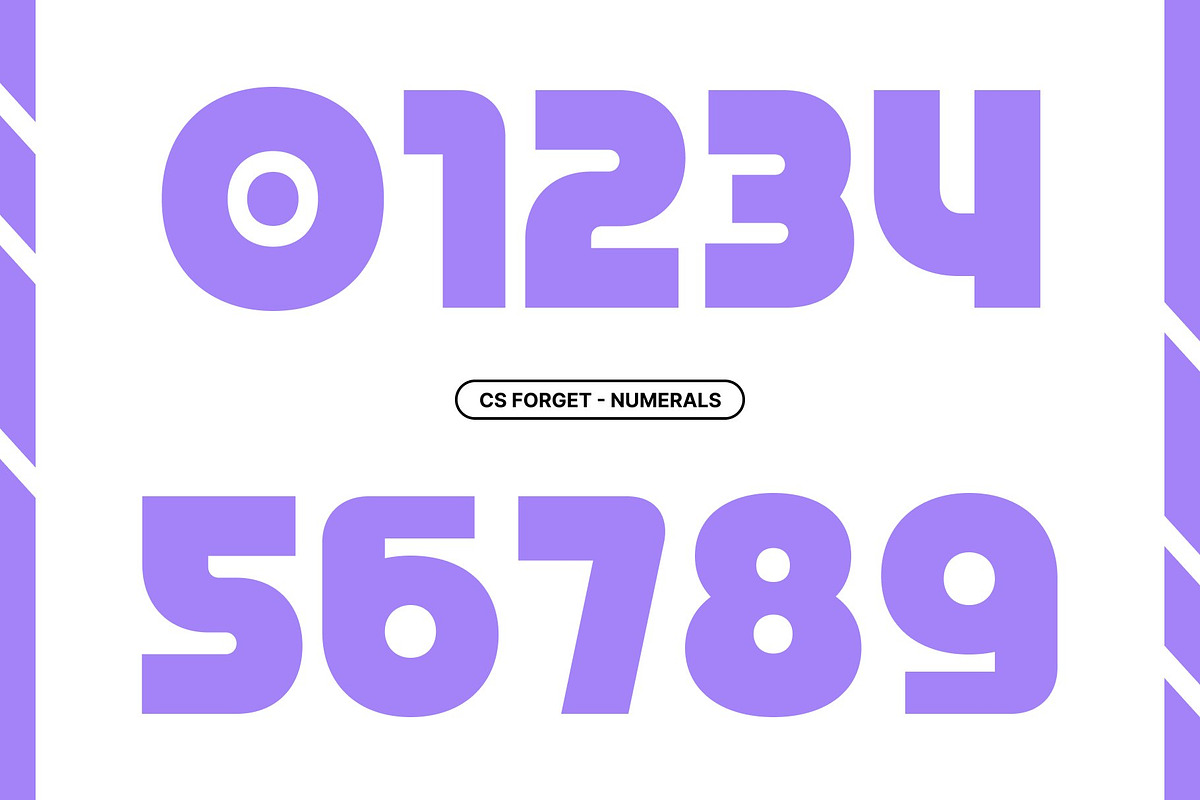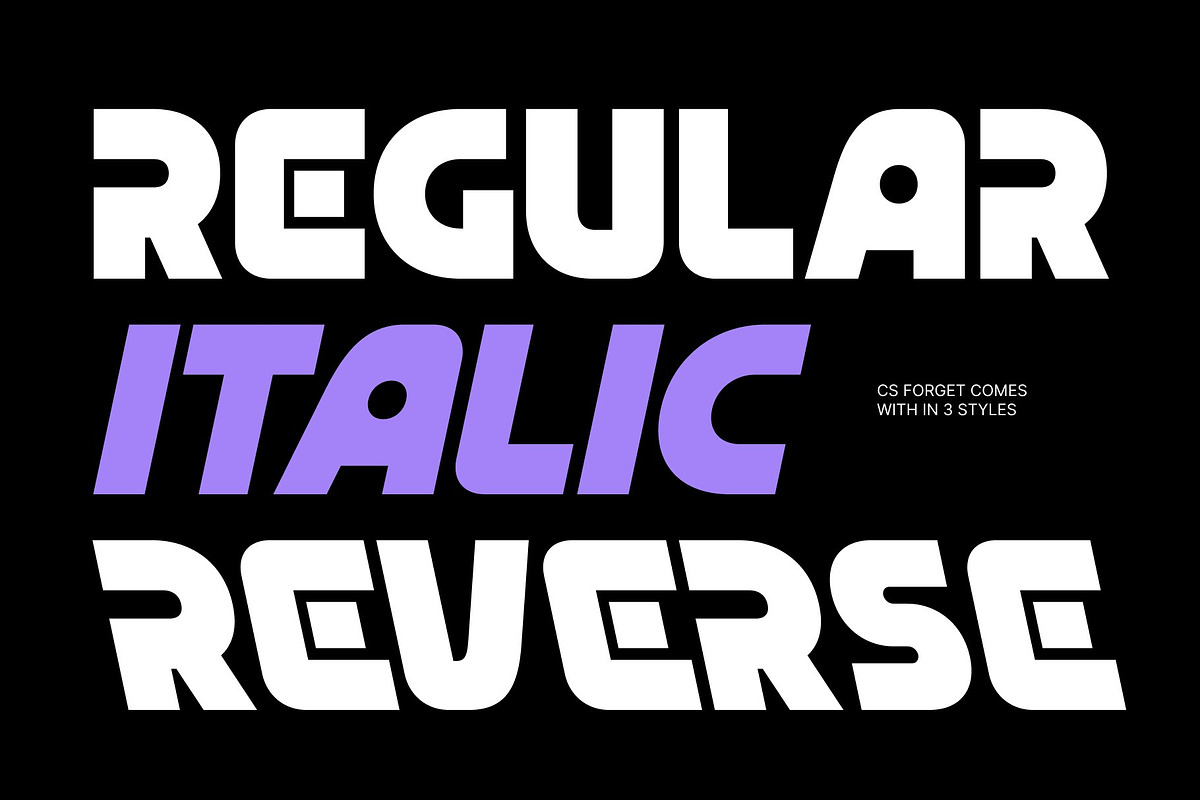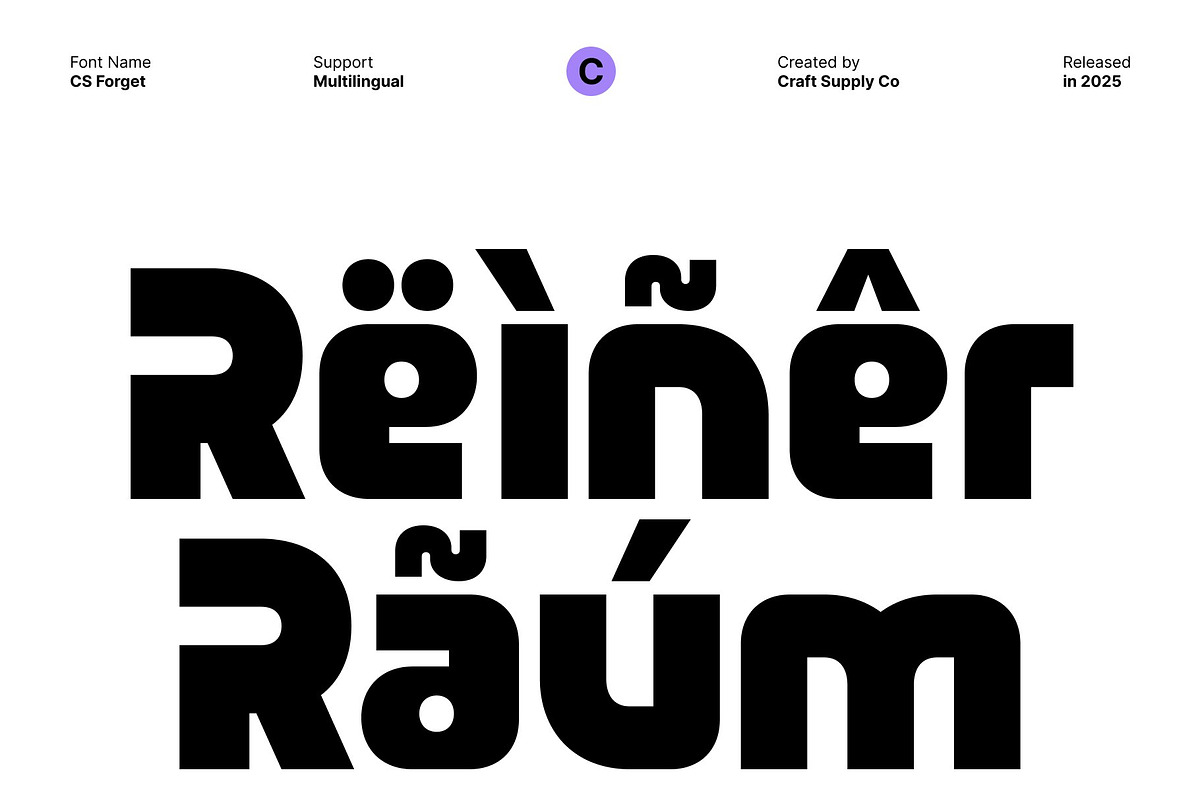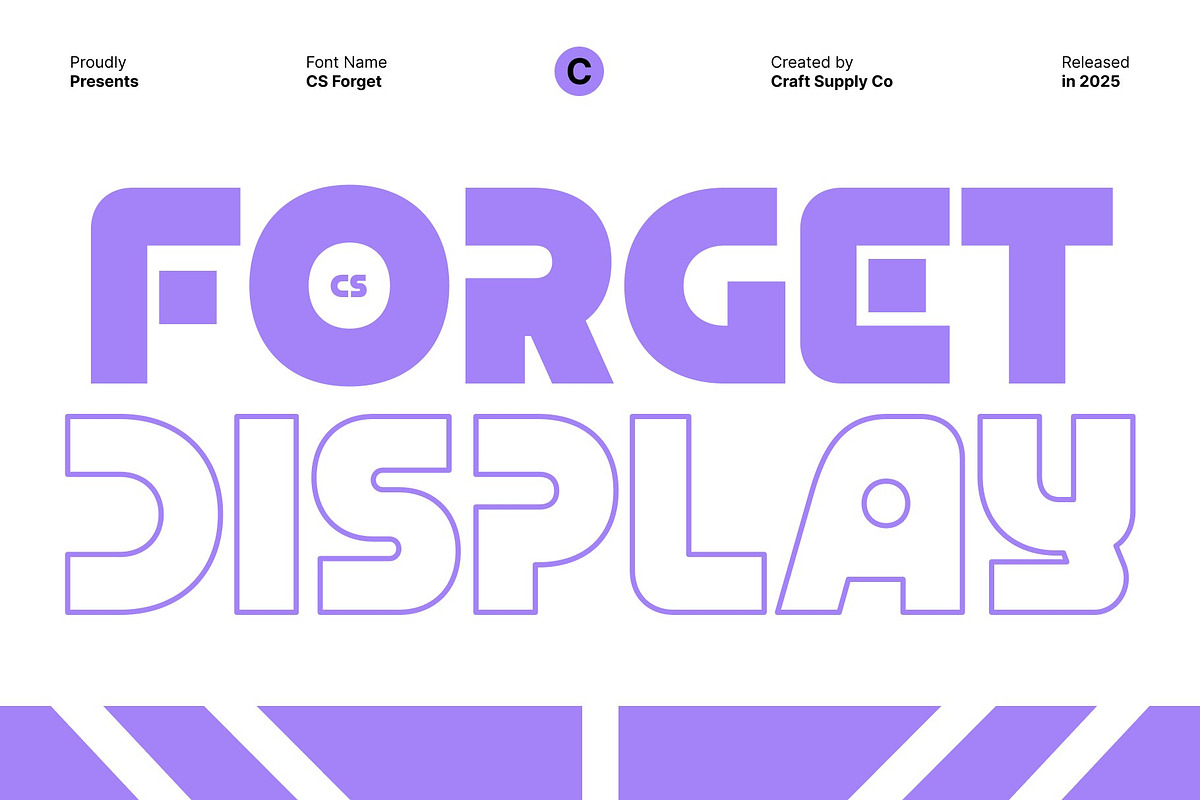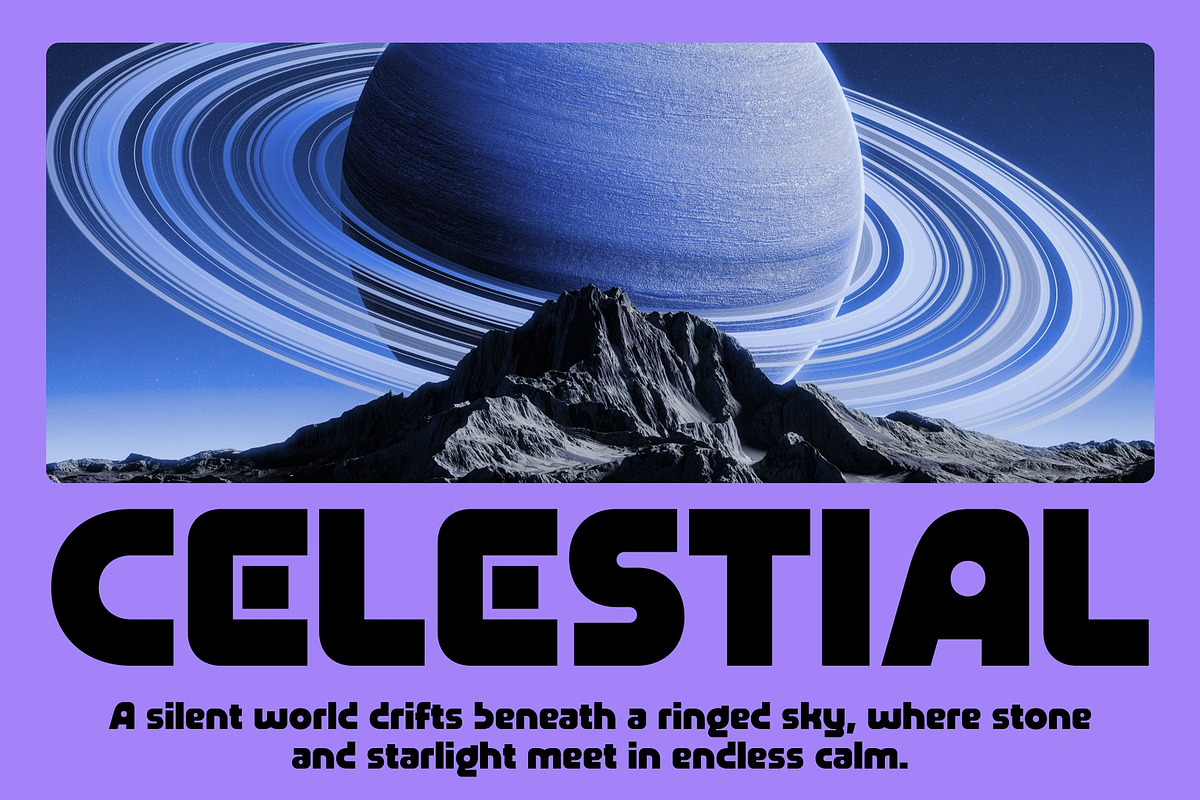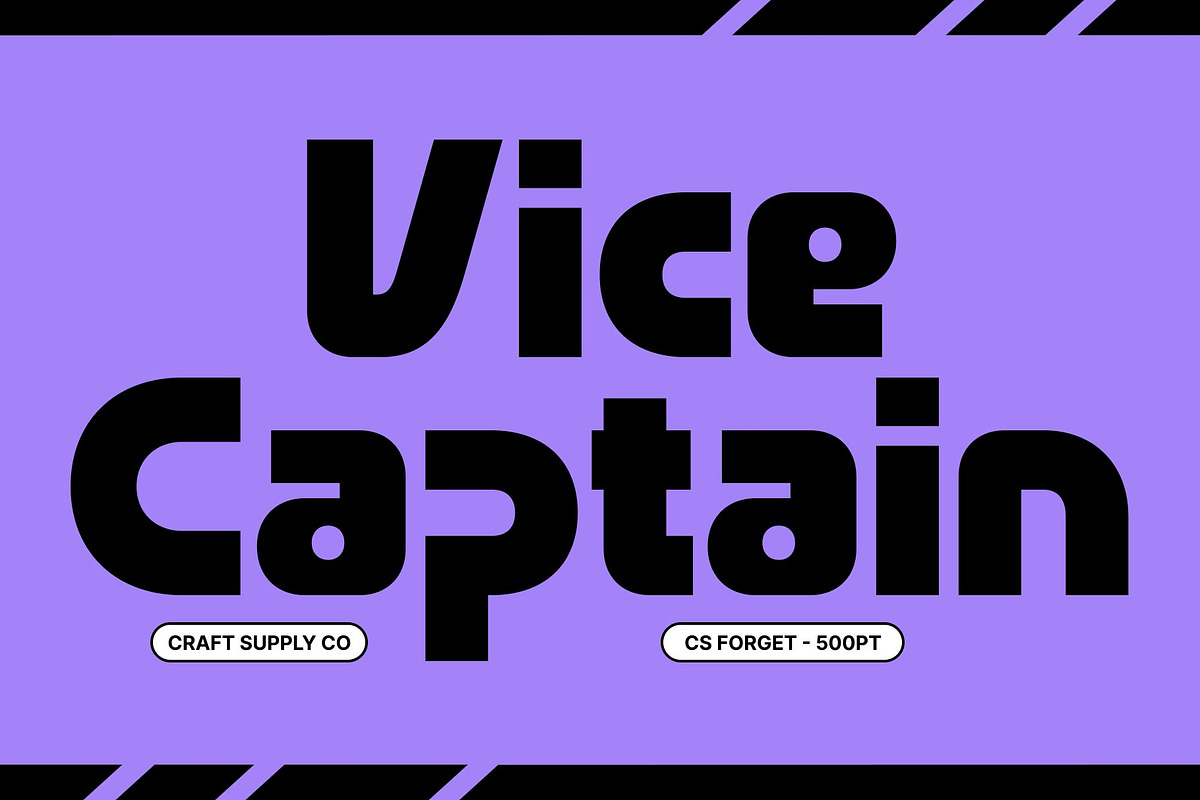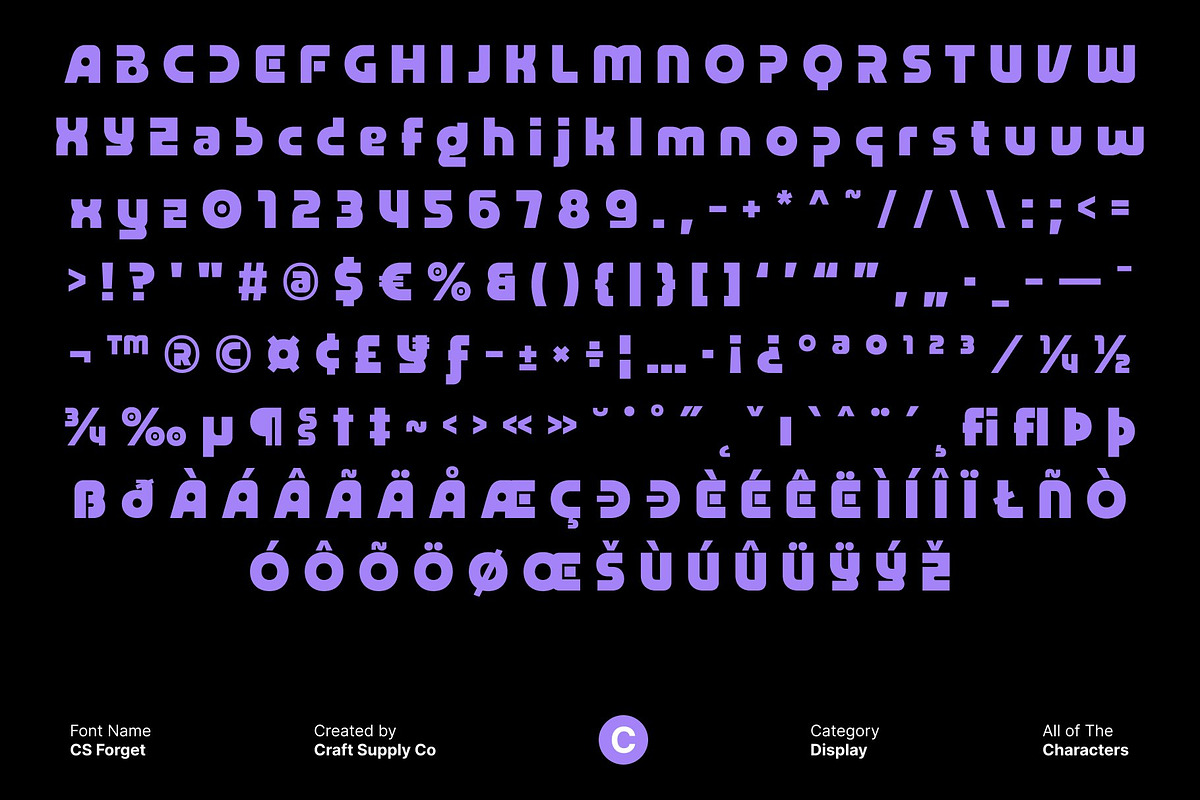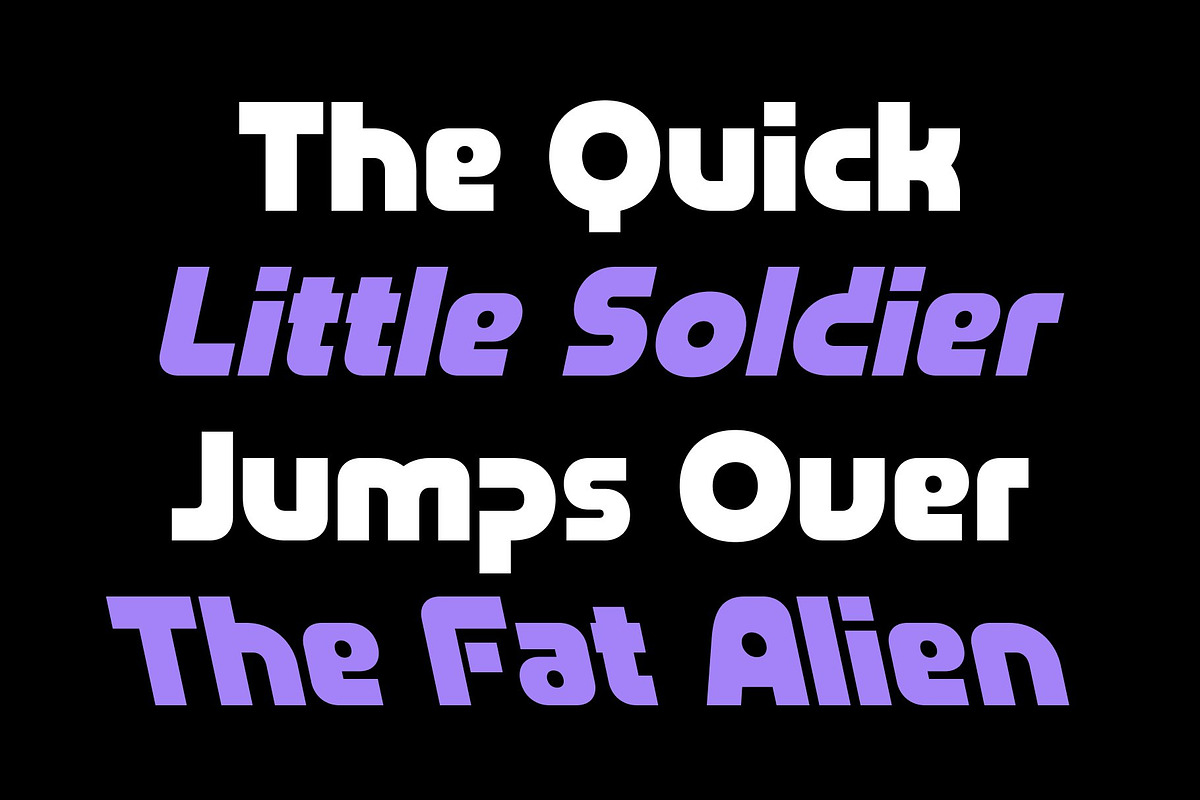
CS Forget – Modern Display Font
CS Forget – Modern Display Font with Futuristic Precision
Modern Futuristic Display Font This is a modern display font designed with futuristic characteristics that highlight technological sophistication and forward-thinking aesthetics. Built from precise geometric structures and bold linear strokes, this font delivers a sharp, confident appearance that feels innovative, clean, and visually powerful. Its contemporary design language makes an ideal choice for projects that demand a strong modern identity with a tech-driven edge.
Geometric Construction with Bold Presence At the core of lies a carefully crafted geometric foundation. Each letterform is constructed with accuracy and balance, creating a structured rhythm that feels both mechanical and refined. The bold lines enhance visibility and impact, ensuring that every character stands out clearly. This combination results in a font that feels strong, stable, and visually commanding perfect for high-impact display use.
Futuristic Style for Technology-Oriented Designs This font excels in futuristic and technology-focused environments. Its modern proportions and clean angles evoke innovation, digital advancement, and modern systems. Whether applied to tech branding, UI headlines, sci-fi visuals, or digital products, the font reinforces a sense of progress and sophistication.
Versatile Display Font for Creative Applications Despite its bold and modern character, this font remains highly versatile. It performs exceptionally well in titles, posters, logos, tech campaigns, gaming visuals, and experimental layouts. Its striking presence ensures readability at larger sizes while maintaining a polished and professional look.